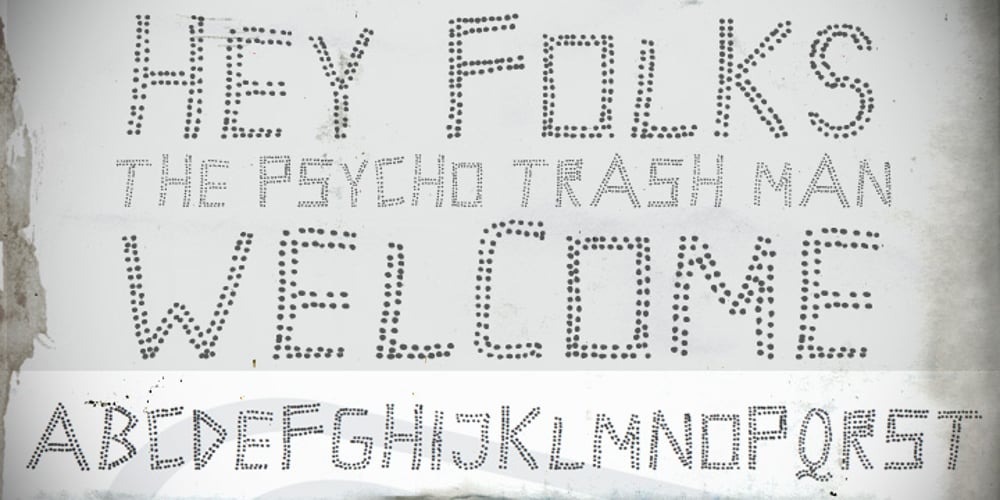
CA Trasher
CA Trasher font
CA Trasher Font Family was designed by Thomas Schostok and published by Cape Arcona Type Foundry. CA Trasher contains 1 styles and family package options. A great UGLY font. Beauty lies in the eye of whoever. Maybe the beholder is a beast or a Swiss artist. The SHIFT key will give you alternative character shapes. Remember: beauty doesn’t lie in the eye of the beholder – it lies in yours!